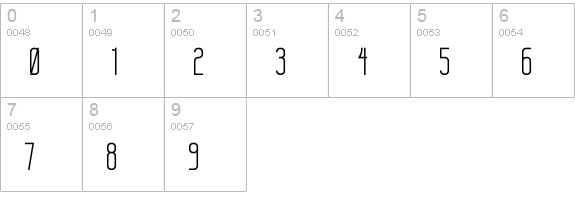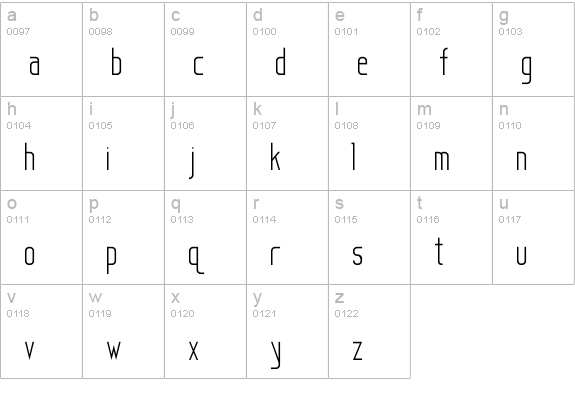
Introducing Sanity, a stunningly elegant font that is bound to elevate your designs to new heights of sophistication. With its clean lines and graceful curves, Sanity exudes a sense of modernity and refinement that will captivate any audience. This versatile font is perfect for a wide range of projects, whether you're designing logos, creating eye-catching headlines, or crafting beautiful invitations. Its timeless appeal ensures that your work will stand the test of time and leave a lasting impression. But what truly sets Sanity apart is that it is completely free. Yes, you read that right. This extraordinary font is freely available to download at FontsMarket.com, a trusted source for high-quality fonts. Now you can access this exceptional typeface without any barriers, allowing you to unleash your creativity without limitations. Designed with meticulous attention to detail, Sanity offers a wide range of weights and styles, giving you the flexibility to customize your designs to perfection. Whether you prefer a bold and commanding look or a more delicate and refined approach, this font has got you covered. Not only does Sanity boast a visually stunning aesthetic, but its legibility is second to none. Each letter is meticulously crafted to ensure optimal readability, even at small sizes. This makes it ideal for both print and digital applications, giving your designs a polished and professional look every time. So, why wait? Experience the elegance and versatility of Sanity font today. Visit FontsMarket.com and download this incredible font for free. Unleash your creativity, enhance your designs, and make a lasting impression with Sanity.